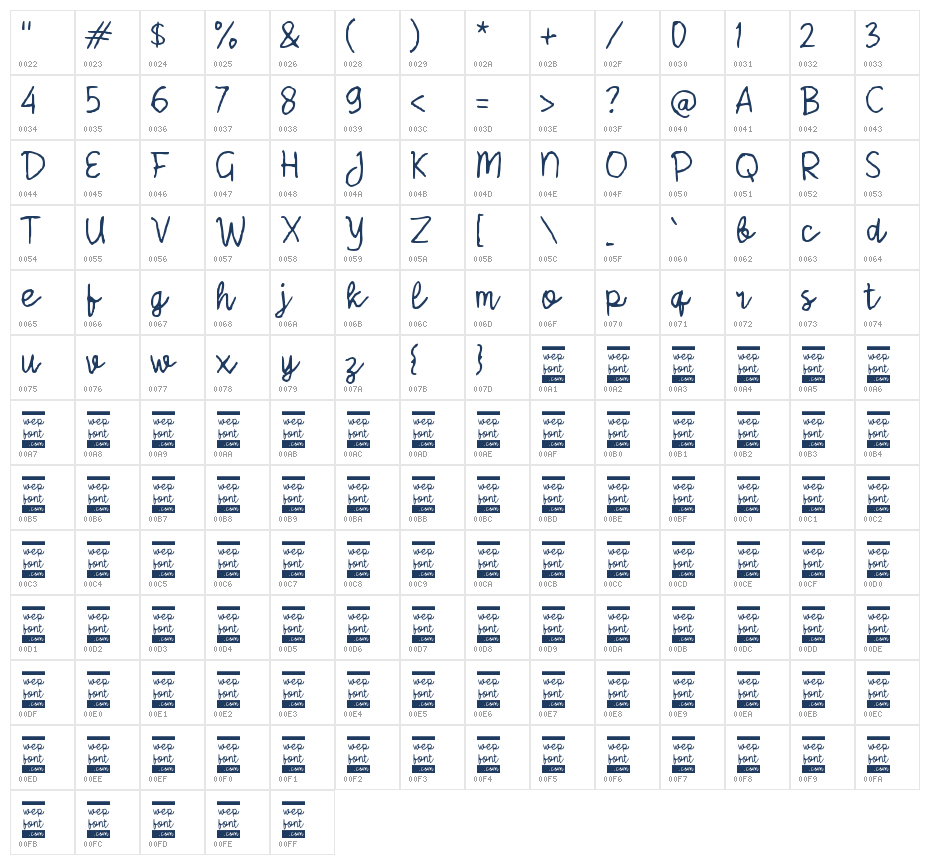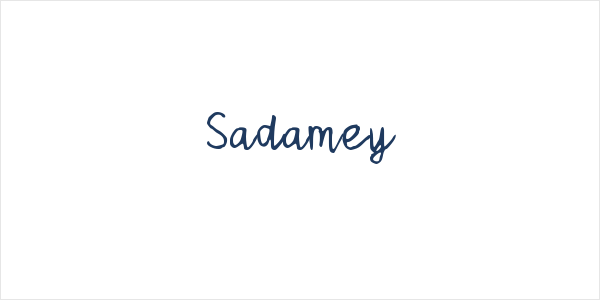
Sadamey Font
Sadamey Description
A casual, handwritten style font with a playful and informal appearance, featuring irregular strokes and a slightly whimsical character.
| Overall Style | Casual, Playful, Informal |
| Use Case | Headlines, Body text, Logos, Invitations, Greeting cards |